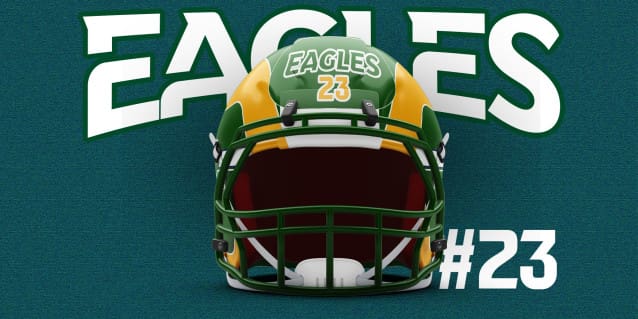
Sepang Font
Sepang Font is a bold condensed display font that is inspired by sports. The slight slants in many of the characters give this font an athletic feel. Sepang can be used diversely, but is particularly best in logos and large typographic applications.